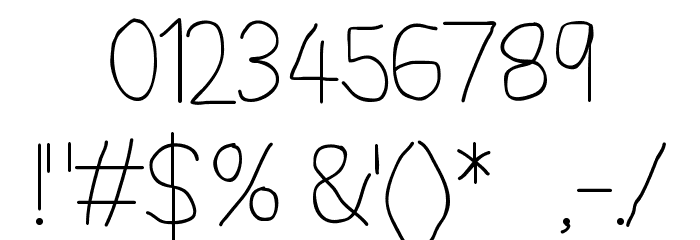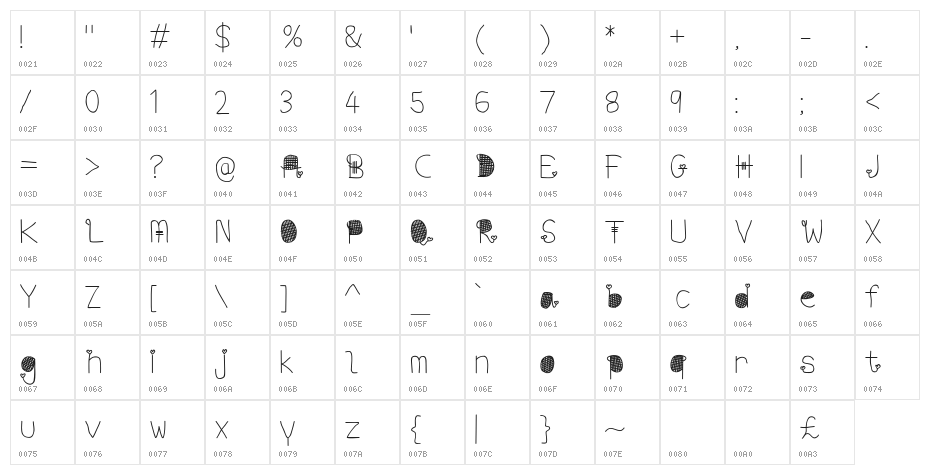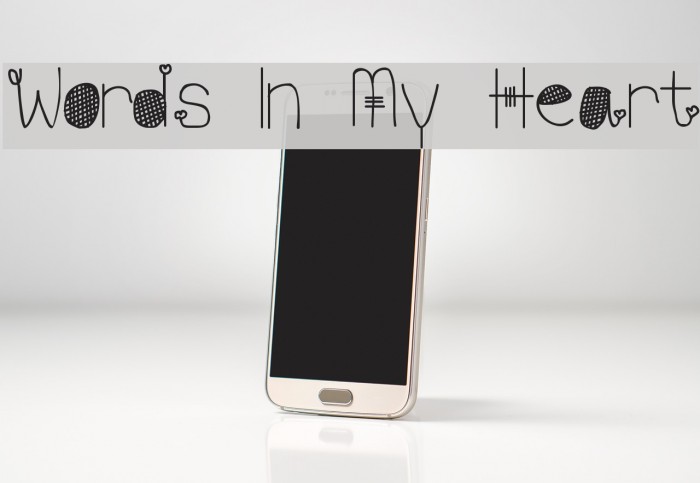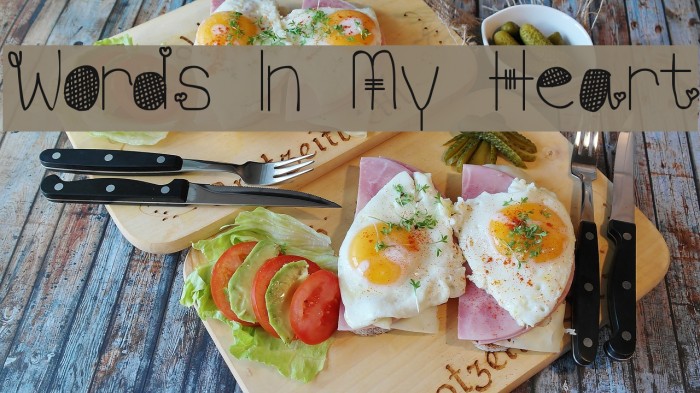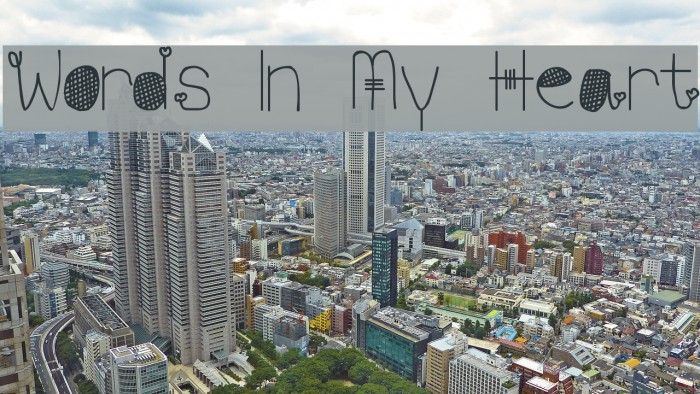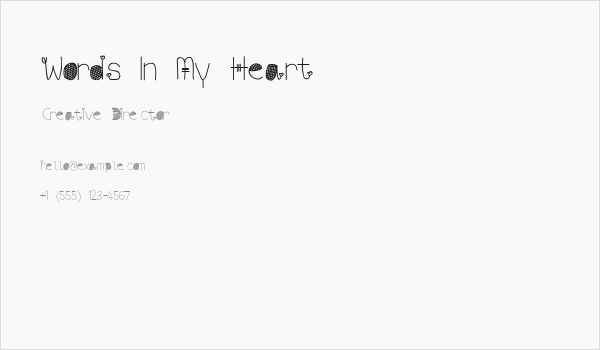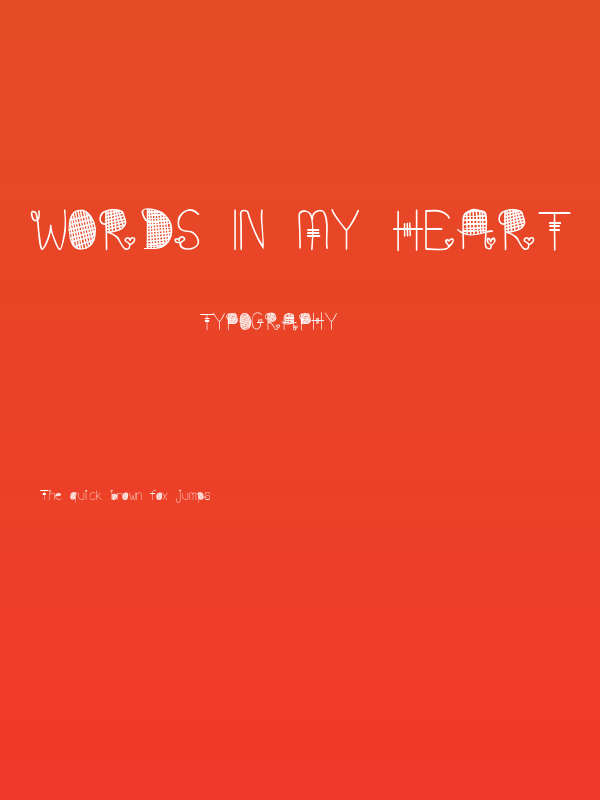
Words In My Heart Font
Words In My Heart Description
This whimsical and playful font features a unique design with heart-shaped embellishments on certain characters, adding a touch of charm and romance. The letters are thin and elongated, with a hand-drawn feel that gives it a casual and friendly appearance. Some characters have filled patterns, adding texture and visual interest. The font maintains a consistent line weight, offering a clean and modern look while still being decorative. Its distinctive style makes it ideal for projects that require a personal and heartfelt touch.
| Proposed Projects | Ideal for greeting cards, wedding invitations, love letters, and playful branding. |